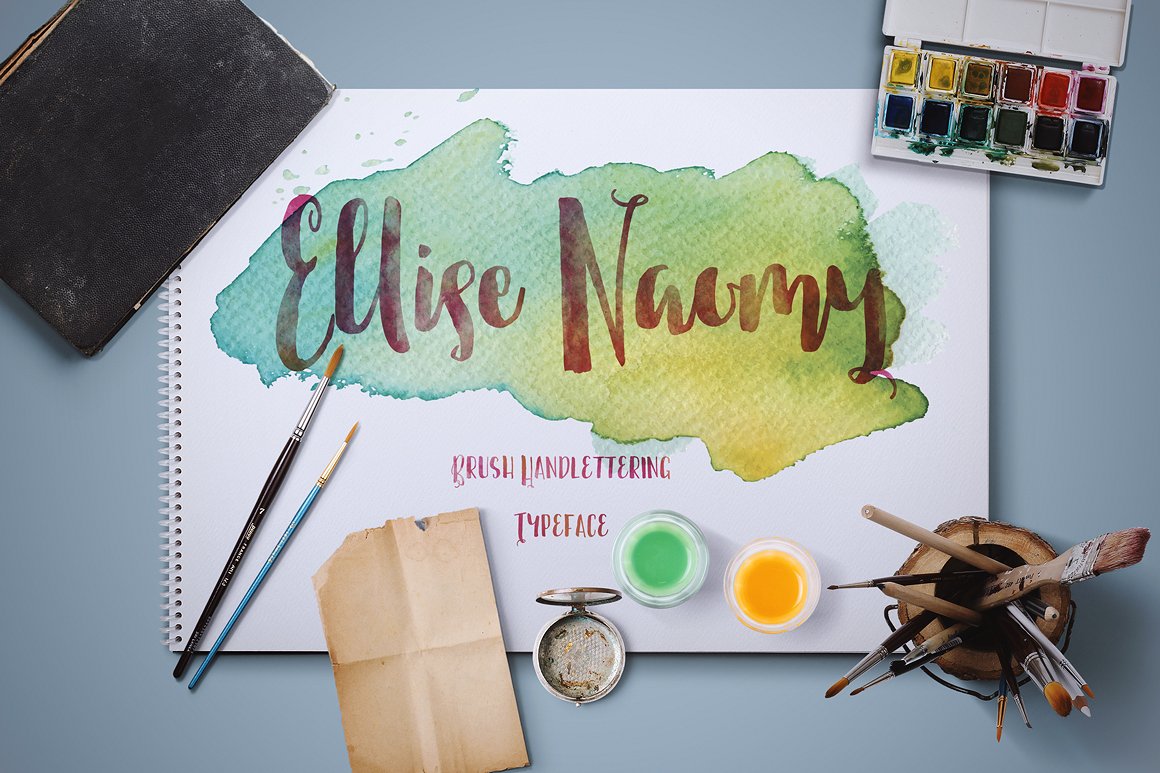
Ellise Naomy Script
This beautiful brush handlettering called Ellise Naomy, its created with lovely and brushy characters. This beauty font was PUA encoded. Ellise Naomy is a brush handlettering typeface that comes with stylistic and unique handlettering.